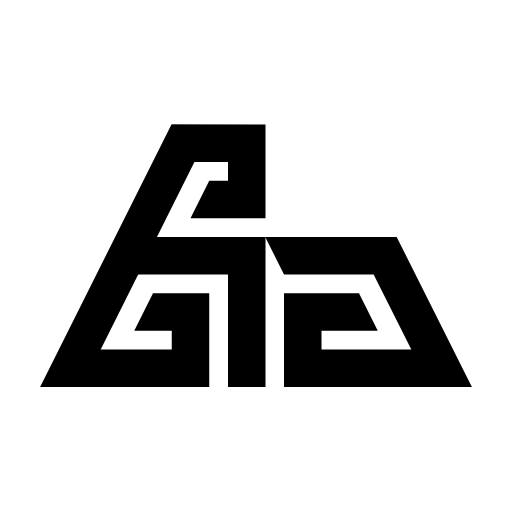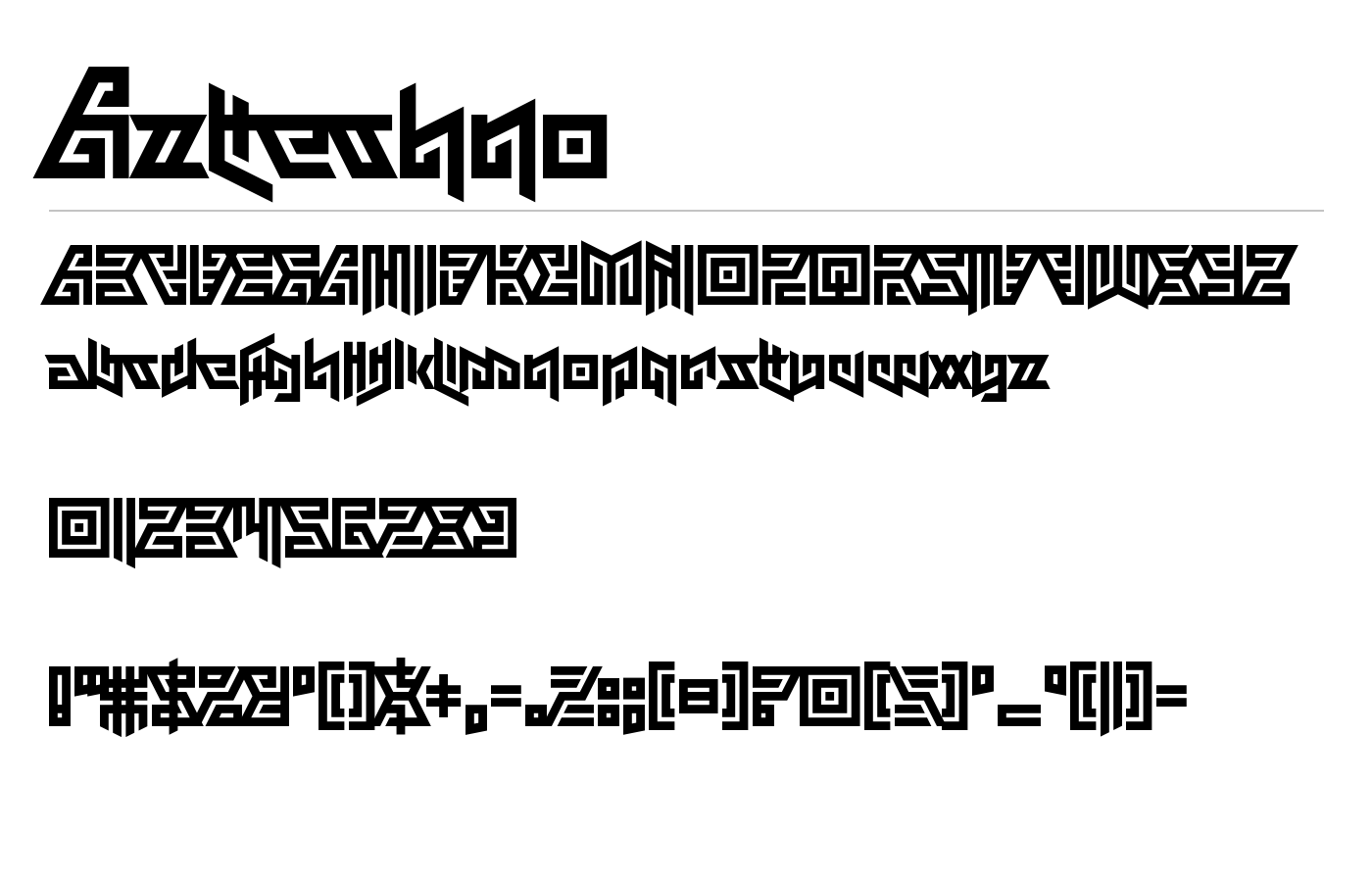
Aztechno is a bold, geometric, and highly stylized display font with sharp angles and intricate maze-like shapes, evoking a futuristic and techno-inspired vibe. Its condensed letterforms and high contrast between thick strokes create a striking and modern look, ideal for eye-catching logos, posters, and digital media that seek a unique, avant-garde aesthetic. This font works best in creative branding or headline use where its strong personality can stand out without compromising legibility.
Aztechno Font
About Aztechno Font
| Font family | Aztechno Font |
| Designer | NAL |